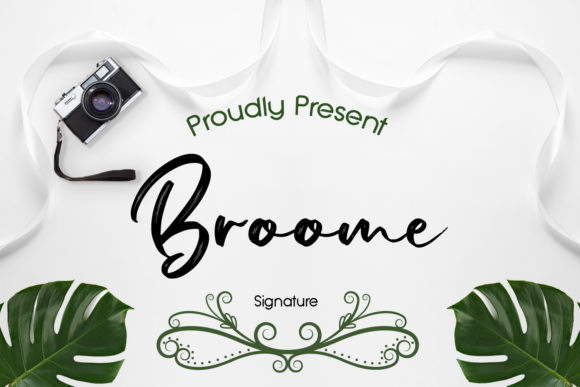
Prepare to be mesmerized by Broome Font, where simplicity and elegance collide! Immerse yourself in the world of handcrafted artistry, where each stroke tells a tale of love and creativity.
For the seekers of unique expression, Broome Font presents a symphony of styles, from the graceful curves of calligraphy to the playful dance of brushstrokes. Its minimal yet captivating nature makes it the perfect companion for your most heartfelt moments.
Imagine your wedding invitations gracing the hands of loved ones, adorned with the timeless beauty of Broome Font. Its flowing lines and delicate flourishes will capture the essence of your special day, leaving an enchanting first impression.
Whether you're crafting heartfelt letters, designing captivating social media posts, or creating stunning branding materials, Broome Font weaves its magic effortlessly. Its versatility allows you to express your creativity in endless ways, transforming ordinary words into extraordinary works of art.
With each stroke of Broome Font, experience the joy of self-expression and watch as your words bloom into masterpieces. Let your imagination soar and embrace the beauty of handwritten elegance. Discover the power of Broome Font today and unleash the magic in your designs!